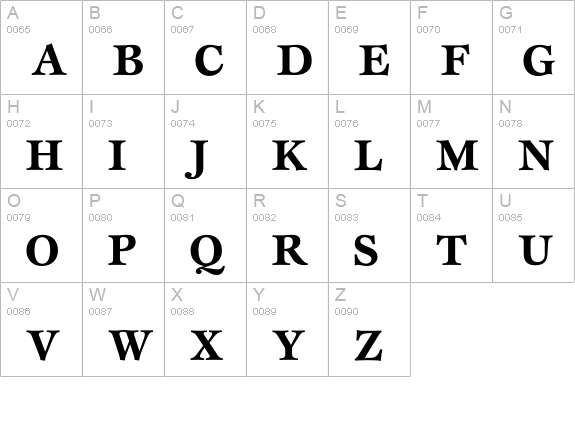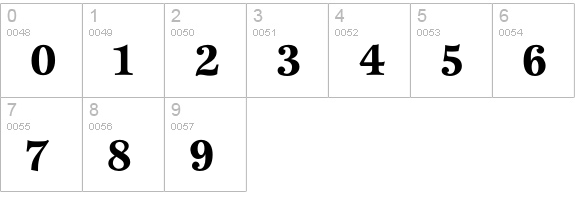
EspritBold Font Details
EspritBold is a modern and stylish font that exudes sophistication and elegance. With its bold and eye-catching design, EspritBold is perfect for making a statement in any project or design. The clean lines and sharp edges of this font give it a sleek and professional look that is sure to impress. Whether you are designing a logo, poster, or website, EspritBold will add a touch of class to your work. The best part about EspritBold is that it is completely free to download at FontsMarket.com. This means that you can access this stunning font without having to spend a dime. So why wait? Enhance your projects with the beauty and versatility of EspritBold today!